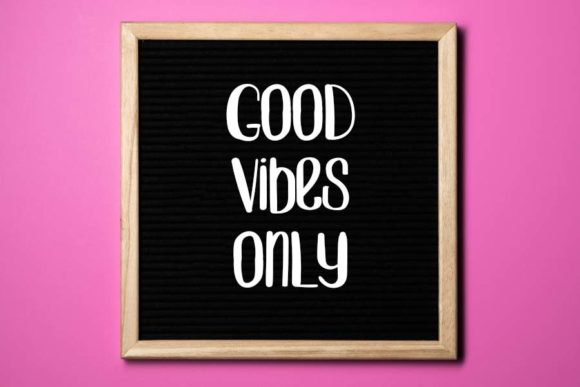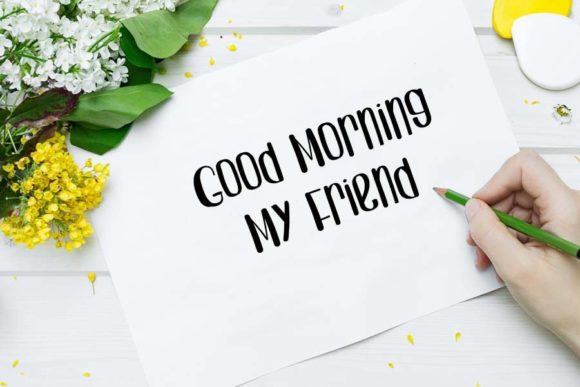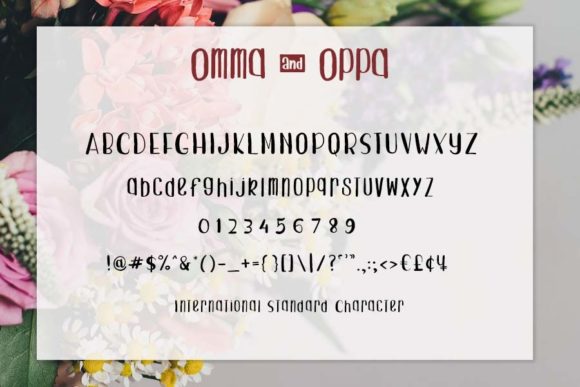
About Omma Oppa Font
Omma Oppa is a fun handwritten font with a unique style. This gentle font will look gorgeous on a variety of design ideas. Add this font to your creative ideas and notice how it will make them stand out!